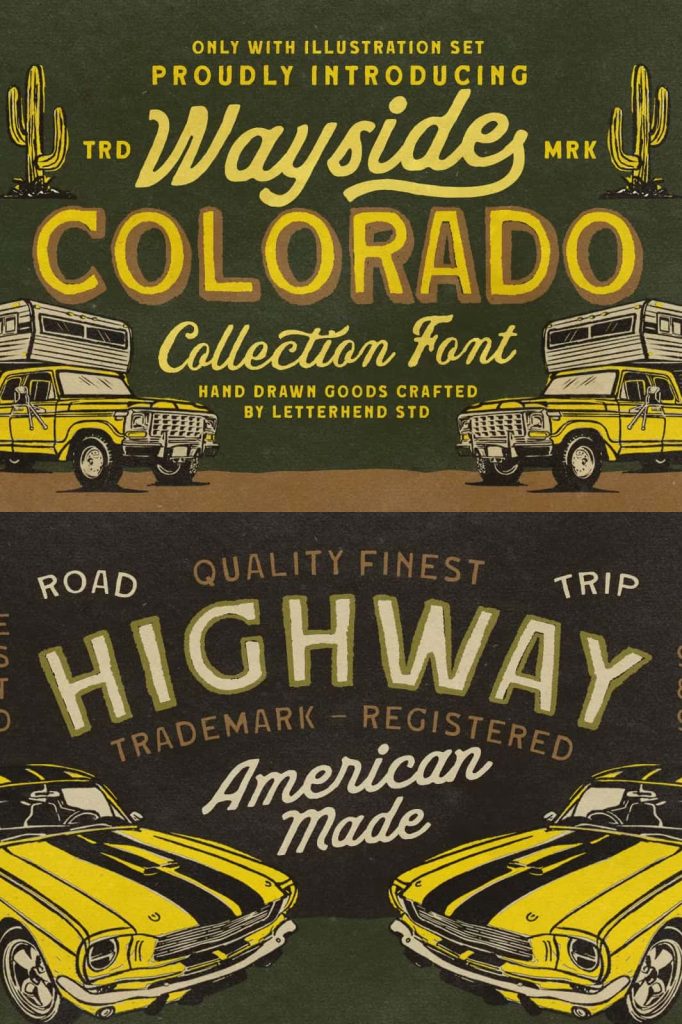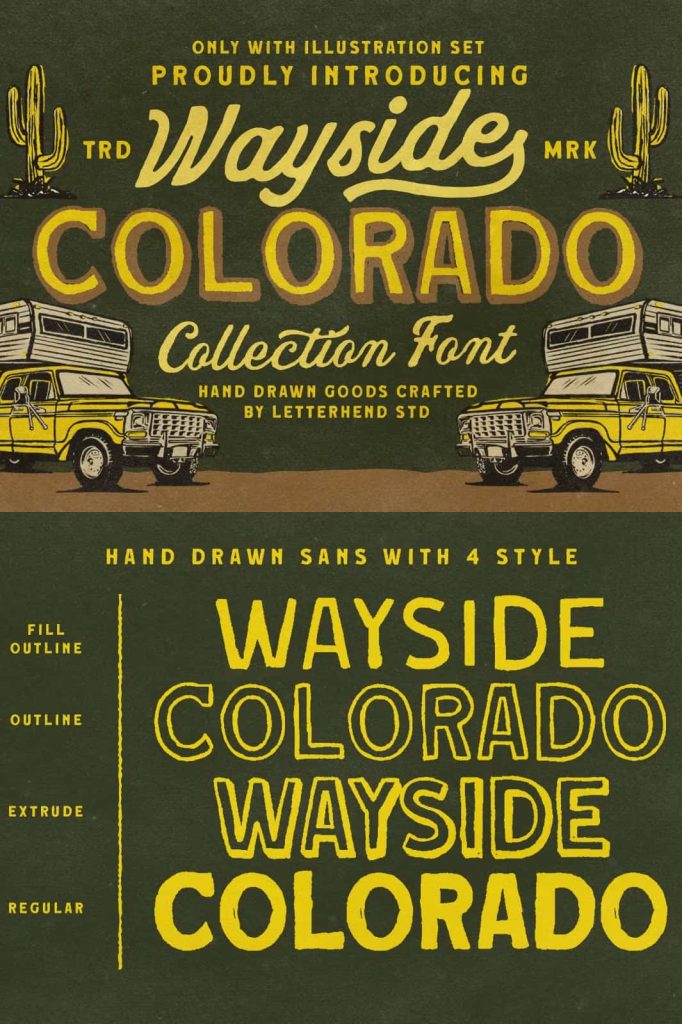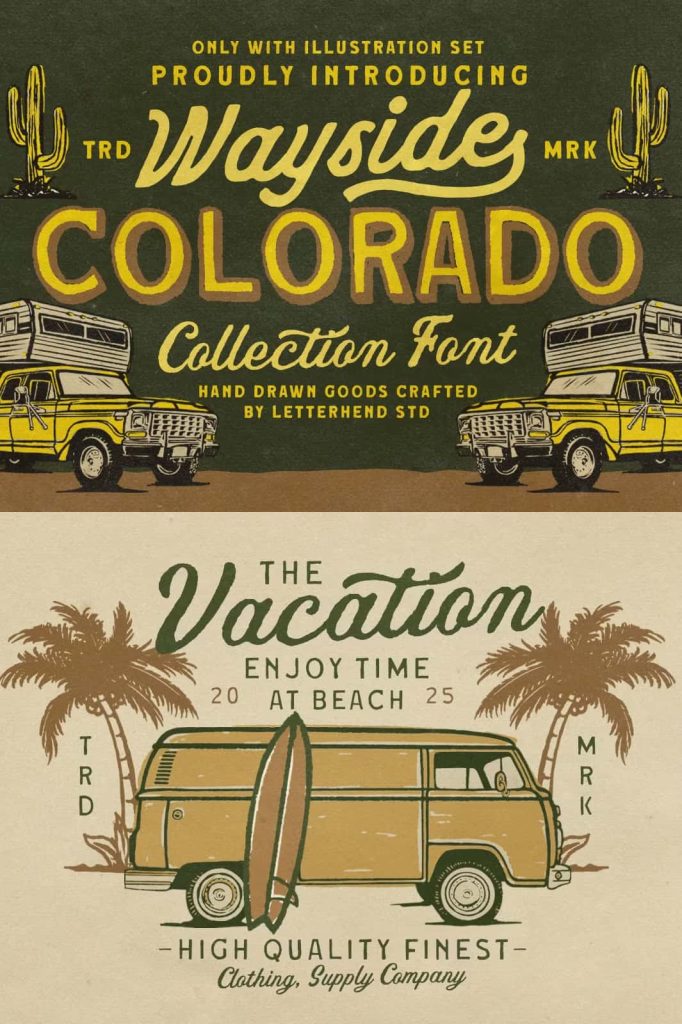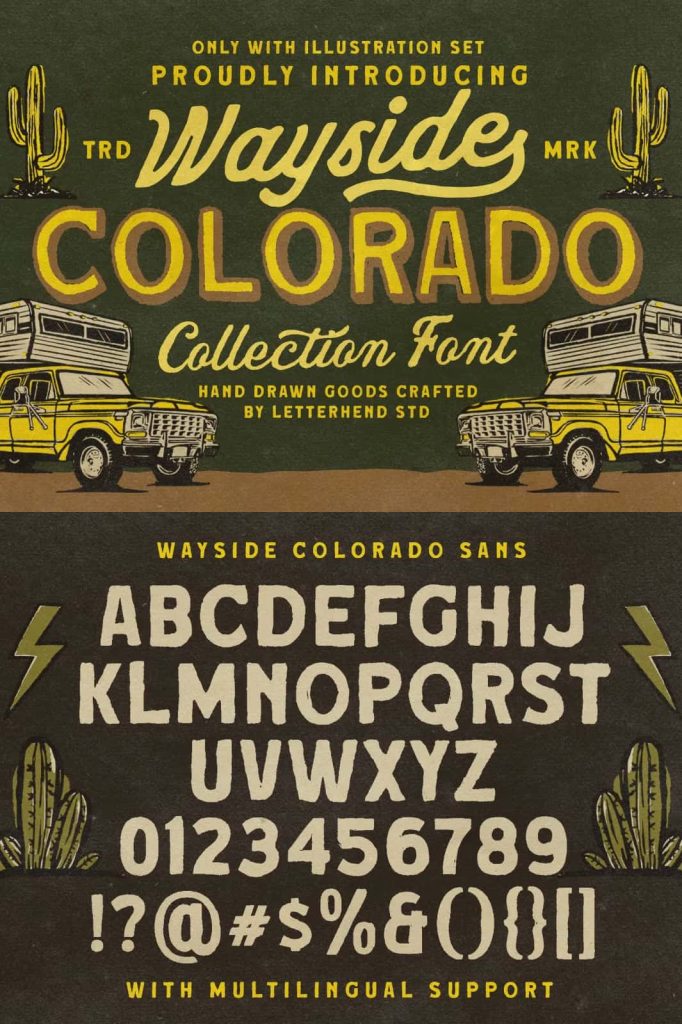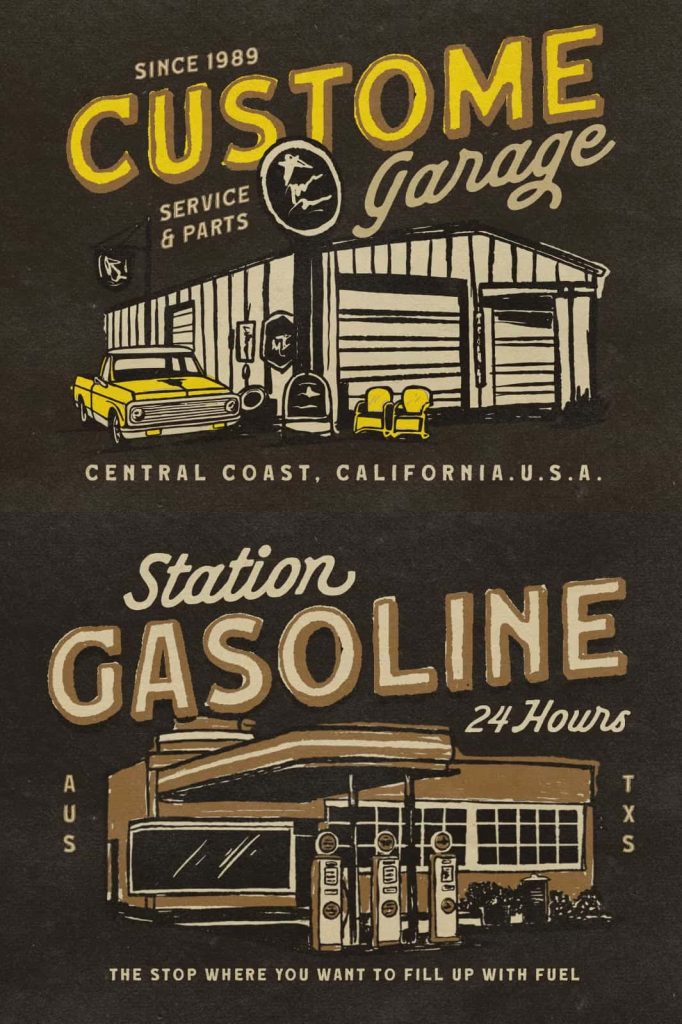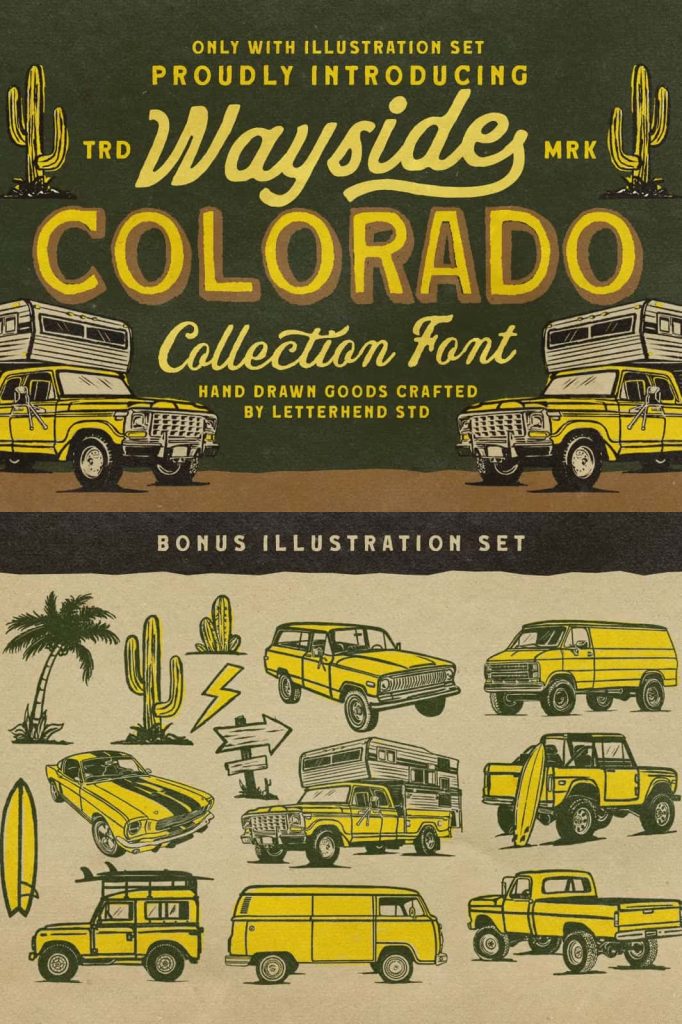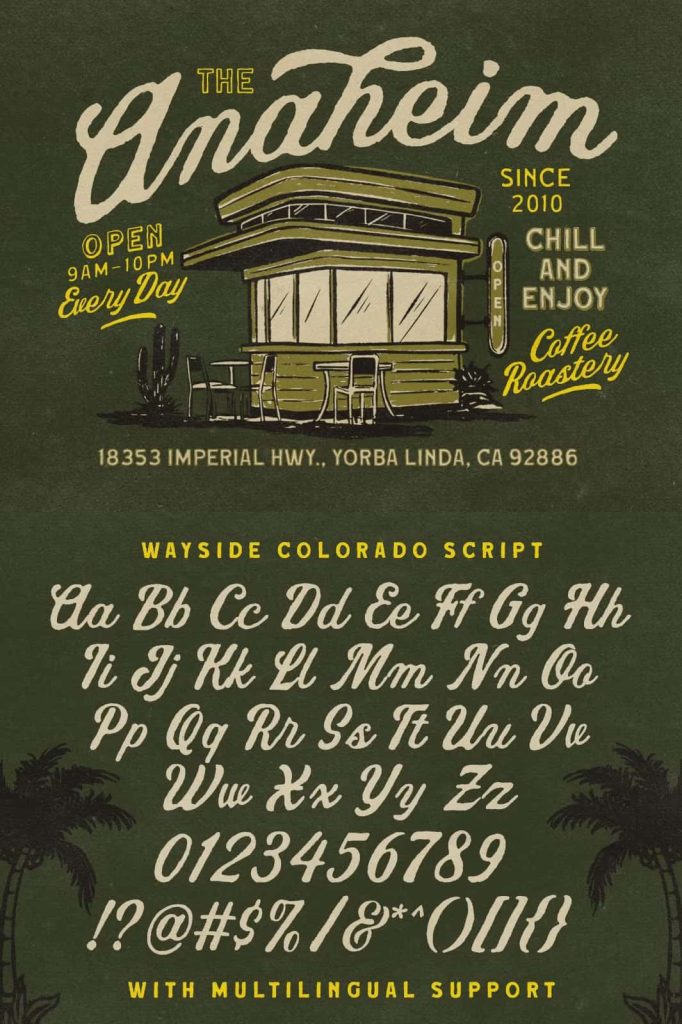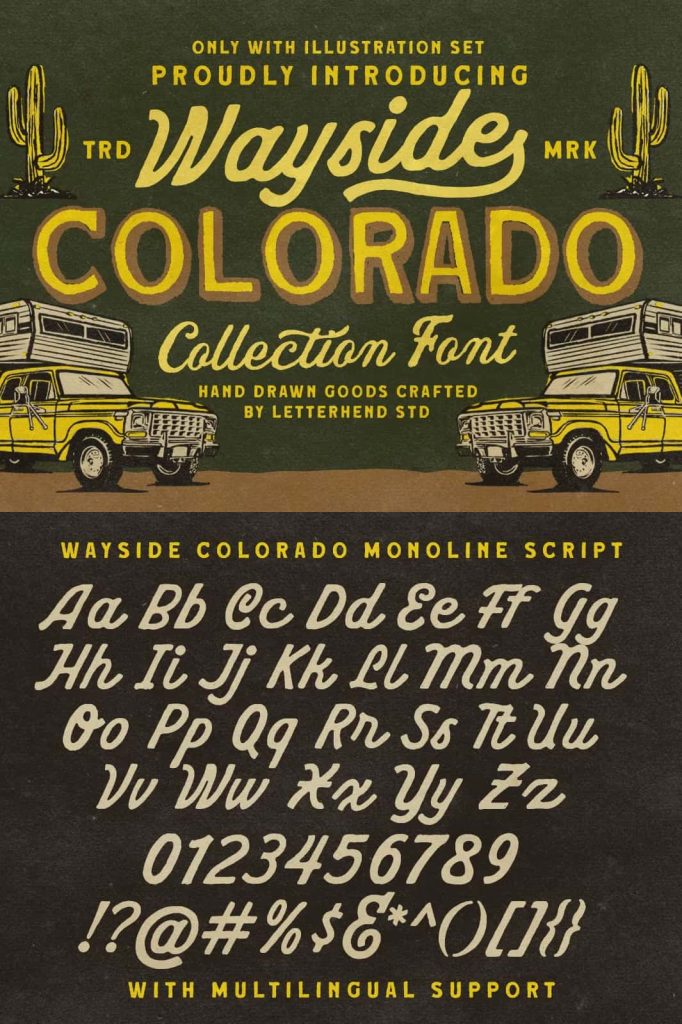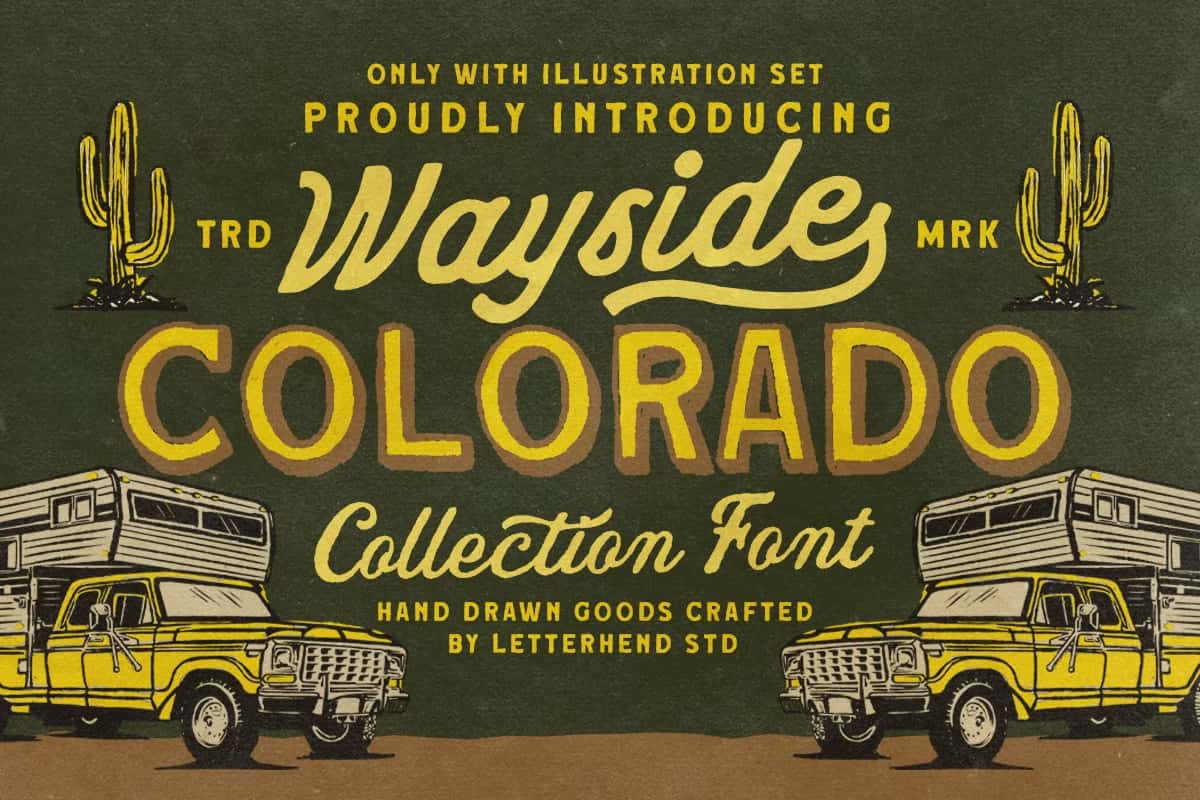
Wayside Colorado Font Collection
Wayside Colorado Collection Font
Wayside Colorado Collection Font is a beautifully handcrafted retro western typeface inspired by vintage road trips, sun-faded roadside signage, rustic Americana, and timeless western design culture. This font collection captures the adventurous spirit of open highways, mountain landscapes, and classic travel destinations while delivering a warm and authentic handcrafted appearance.
Designed with rough textured strokes and vintage-inspired letterforms, Wayside Colorado Collection Font adds personality, charm, and nostalgic character to every project. The handcrafted imperfections create a natural and weathered look that feels genuine and visually memorable. Whether you are creating branding for a rustic café, designing apparel for an outdoor lifestyle brand, or producing promotional materials for a western-themed event, this typeface delivers strong visual impact with timeless style.
Inspired by Vintage Road Trips and Western Culture
The inspiration behind Wayside Colorado Collection Font comes from classic American road trips, aged highway signage, retro travel posters, and traditional western typography. Every letter reflects the rugged beauty of roadside culture and handcrafted design traditions that continue to inspire modern creatives today.
The rough stroke details give the typeface an authentic vintage appearance while maintaining excellent readability and strong visual presence. Designers can use this font to instantly create nostalgic branding and creative visuals that feel warm, adventurous, and full of character.
This retro western font collection works perfectly for projects that require a handcrafted aesthetic with timeless personality. The balance between rustic texture and clean typography makes it suitable for both bold headline designs and detailed branding applications.
Perfect for Branding and Creative Design Projects
Wayside Colorado Collection Font was created for designers, business owners, and creative professionals who want typography with authentic vintage appeal. Its western-inspired design style helps brands stand out with a strong and memorable identity.
Logo Design
Create unforgettable logos with handcrafted western typography that feels authentic and adventurous. This font works especially well for cafés, breweries, outdoor brands, camping companies, vintage stores, barbershops, and artisan businesses.
Poster and Promotional Design
The bold retro style makes Wayside Colorado Collection Font an excellent choice for posters, event promotions, concert graphics, and advertising campaigns. Its textured appearance immediately attracts attention and creates a timeless visual atmosphere.
Apparel and Merchandise
Design stylish t-shirts, hoodies, hats, tote bags, and outdoor merchandise with typography inspired by western culture and vintage travel aesthetics. The rugged handcrafted style adds authenticity and creative personality to every apparel design.
Adventure and Outdoor Branding
Adventure brands and outdoor companies can use this font to communicate exploration, freedom, and rugged craftsmanship. The retro road trip influence creates a strong connection with travel enthusiasts, nature lovers, and outdoor communities.
Rustic Typography with Authentic Texture
One of the most distinctive features of Wayside Colorado Collection Font is its textured and weathered appearance. The rough strokes create a handcrafted effect that resembles vintage painted signs, worn wood lettering, and old roadside advertisements.
These details help designers create projects that feel authentic rather than overly polished or artificial. The font delivers a sense of history and craftsmanship while remaining highly versatile for modern design applications.
This handcrafted texture works beautifully with:
• Vintage-inspired branding
• Rustic packaging design
• Outdoor and camping graphics
• Retro social media content
• Travel and tourism branding
• Western-themed event materials
• Nature photography overlays
• Restaurant and café menus
• Creative signage and storefronts
• Adventure merchandise and apparel
Versatile for Print and Digital Media
Wayside Colorado Collection Font offers excellent flexibility across different design formats. Designers can confidently use it for both print and digital projects while maintaining its strong vintage western character.
The font performs beautifully on large display text, logos, website headers, social media graphics, packaging labels, and printed promotional materials. Its rugged yet clean design structure ensures readability while preserving its handcrafted personality.
This versatility allows creative professionals to build cohesive branding systems across multiple platforms using one visually distinctive typeface collection.
Why Choose Wayside Colorado Collection Font?
Modern audiences appreciate designs that feel authentic, nostalgic, and emotionally engaging. Wayside Colorado Collection Font helps designers create visuals that connect with people through handcrafted warmth and timeless western aesthetics.
Bring Adventure and Character to Your Typography
Typography has the power to shape the entire mood of a design, and Wayside Colorado Collection Font captures the feeling of freedom, exploration, and handcrafted creativity. Its textured western aesthetic instantly adds warmth and individuality to logos, packaging, posters, and branding materials.
From rustic business identities to vintage-inspired creative campaigns, Wayside Colorado Collection Font gives designers the tools to create bold, authentic, and visually unforgettable typography with classic western charm.